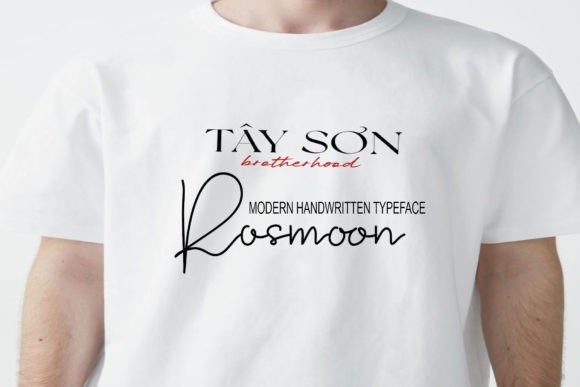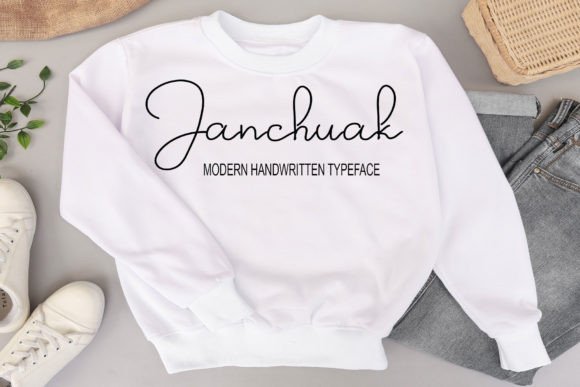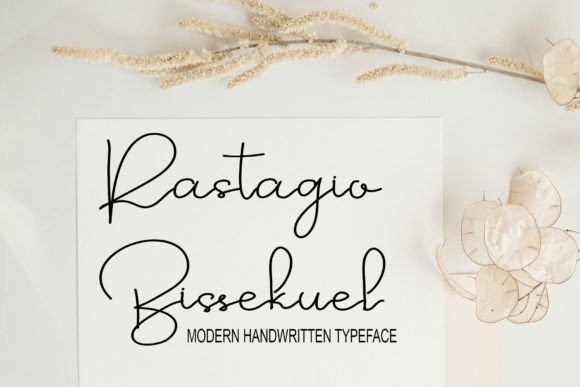
Introduction to Kismeen Font
Kismeen is a font written by hand using a tablet.
👤 Author Canden Meutuah
The font can also be used for websites, wedding invitations, business cards, signatures, and advertisements, be it product advertisements or other advertisements Even though it looks simple, this font still looks cool and stylish.
Key Features of Kismeen Font